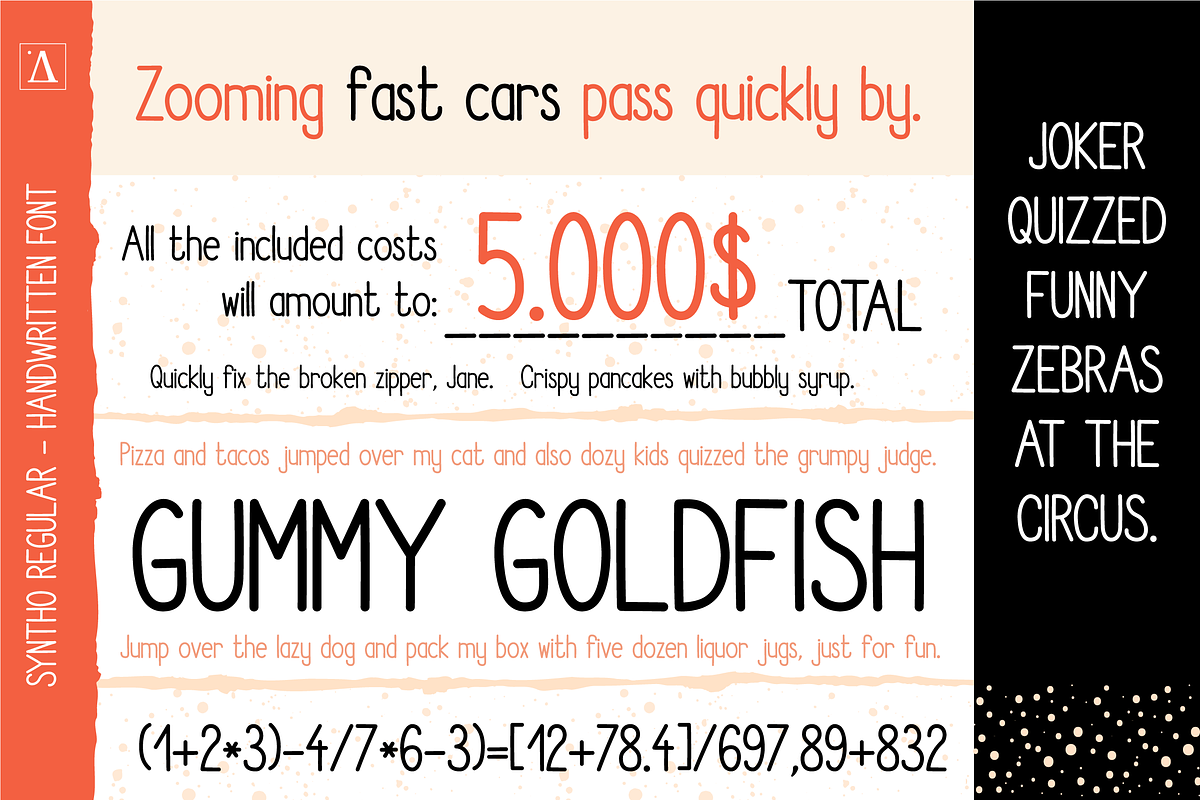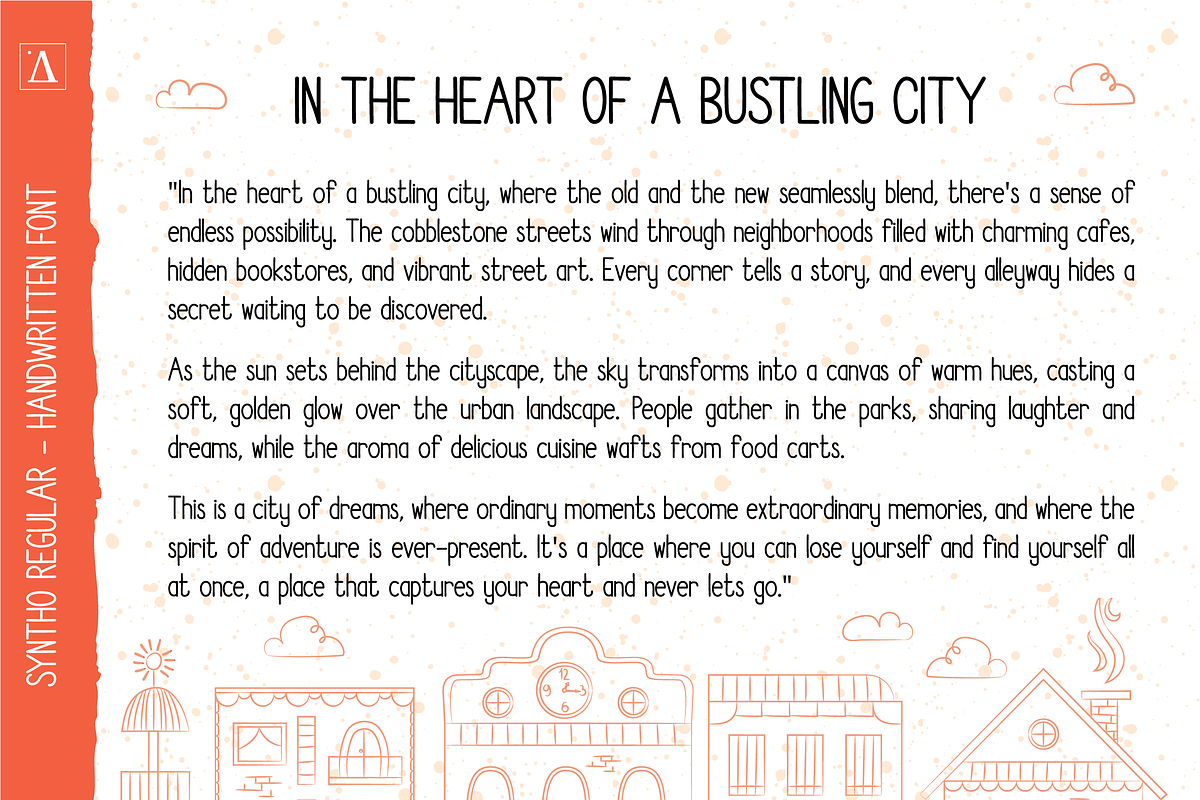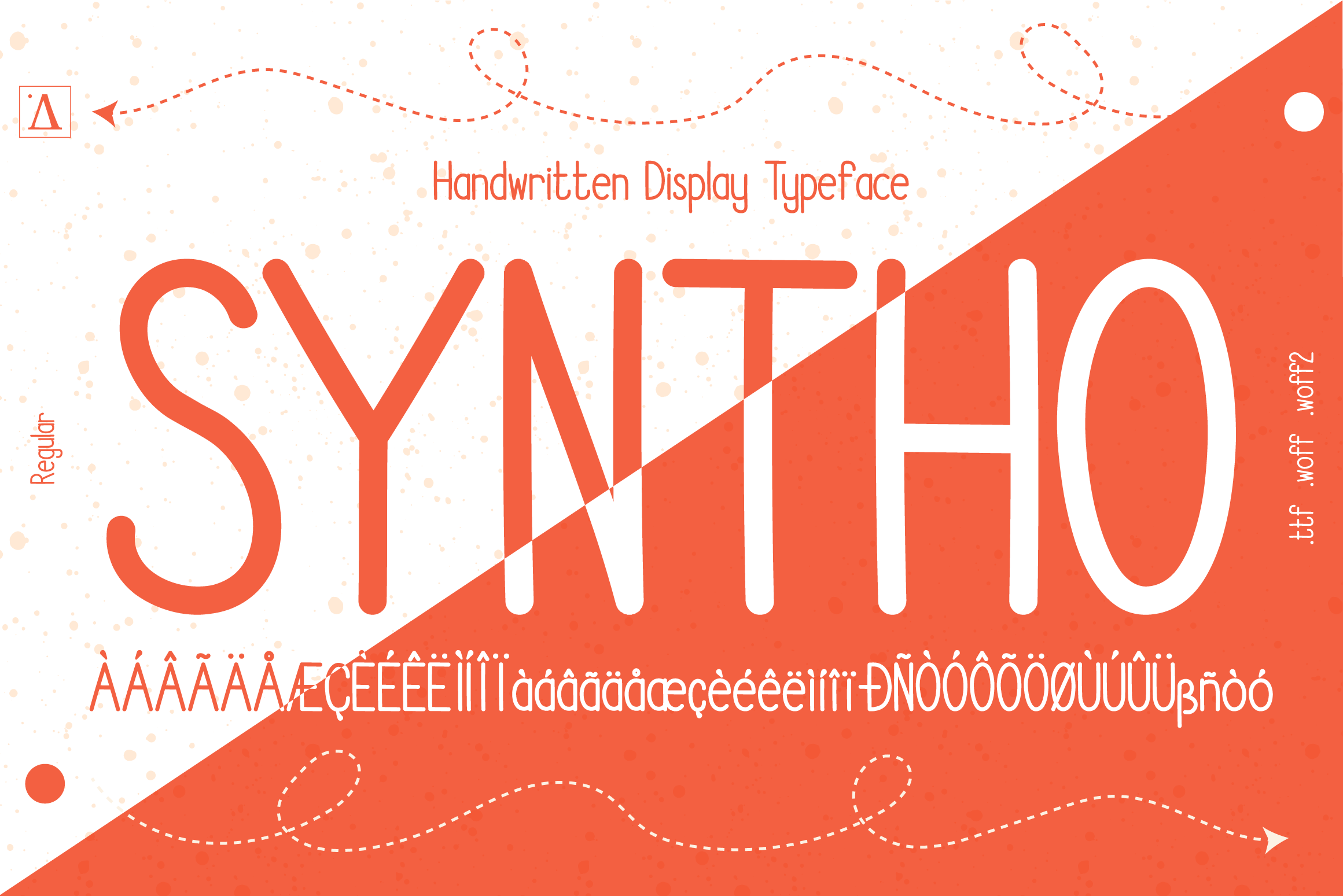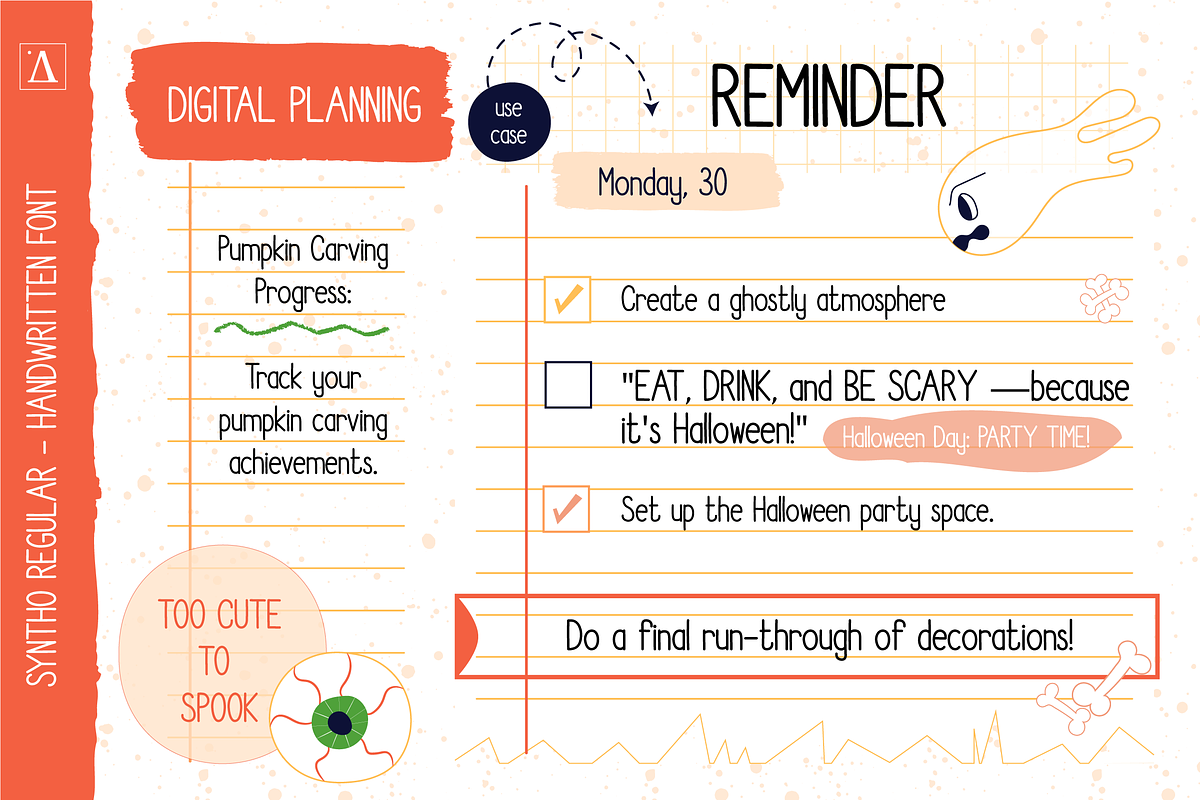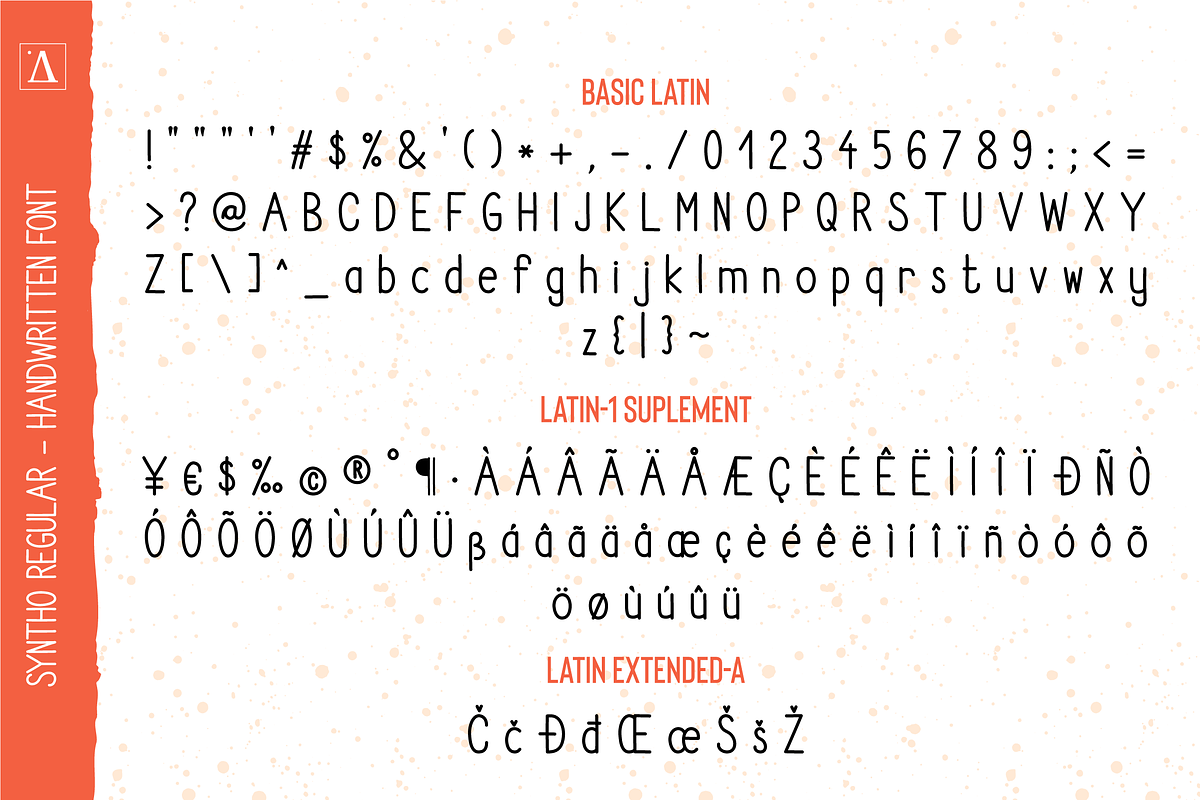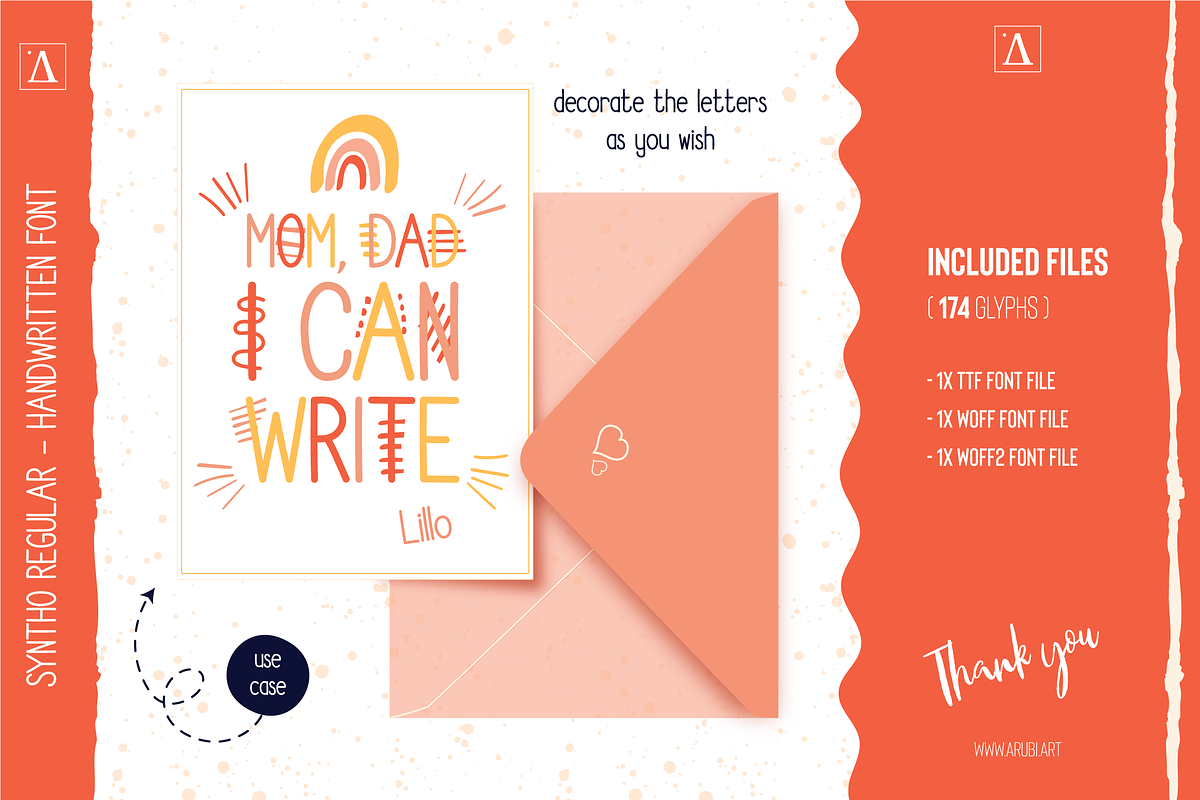
"Syntho" Display Handwritten Font
Introducing "Syntho": Your Perfect Digital Journaling Companion
Playful Display Handwritten Typeface
Bring a touch of whimsy and a dash of creativity to your projects with Syntho, a delightful handwritten font that's as versatile as it is charming. Crafted with care and attention to detail, this font is perfect for adding a personal and playful touch.
Font Highlights:
- Designed for Digital Journaling: "Syntho" is meticulously crafted with the needs of digital journal enthusiasts in mind. Every character exudes the warmth and authenticity of real handwriting, making your digital entries feel personal and engaging.
- Complete Character Set: "Syntho" boasts a comprehensive character set that includes all basic Latin-supported glyphs, the Latin-1 supplement character set, and the Latin extended-A character set. Write effortlessly in multiple languages and styles without missing a beat.
- Regular Weight for Clarity: The font's regular weight strikes the perfect balance between clarity and handwritten charm. Your journal entries will be easy to read while maintaining the character and warmth of handwriting.
- Playful and Approachable: "Syntho" adds a playful and approachable touch to your digital journals. It's like writing with your favorite pen, only in the digital world.
- Endless Journaling Possibilities: From daily reflections and gratitude journals to creative writing and note-taking, "Syntho" elevates your journaling experience, allowing your thoughts and ideas to flow freely on the screen.